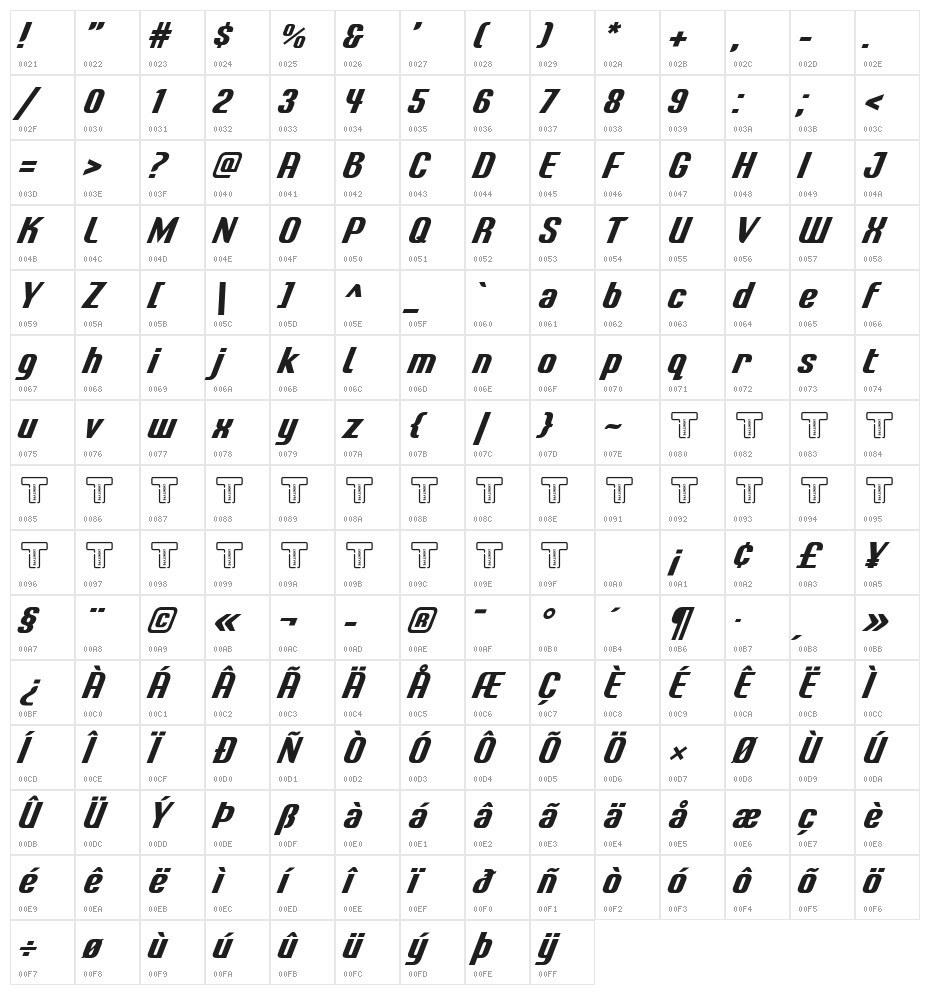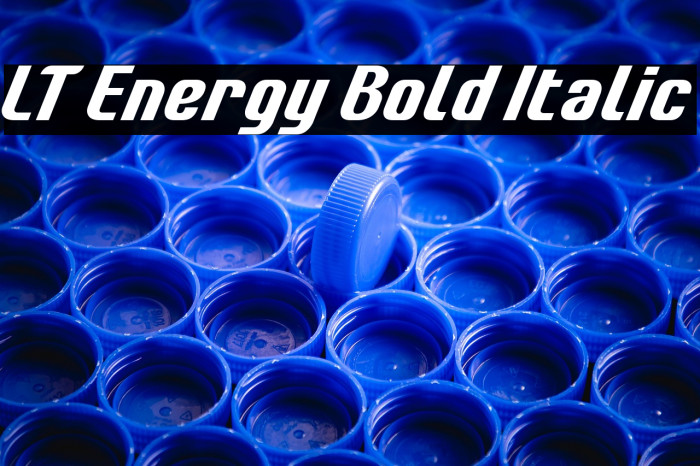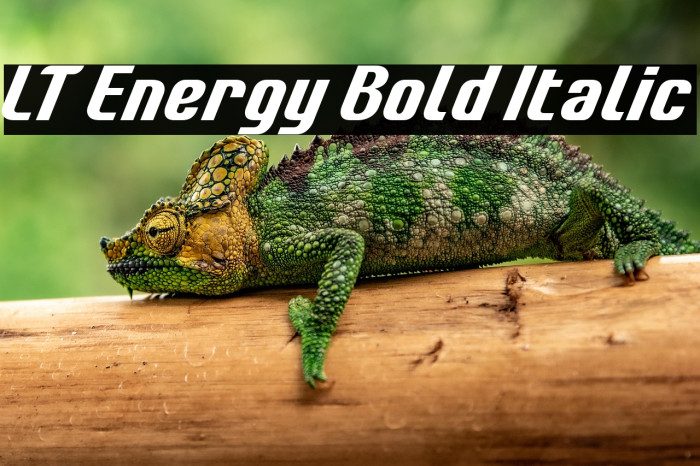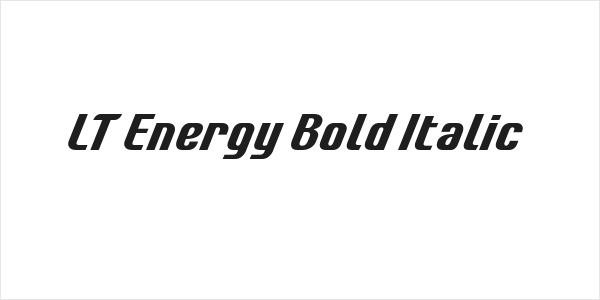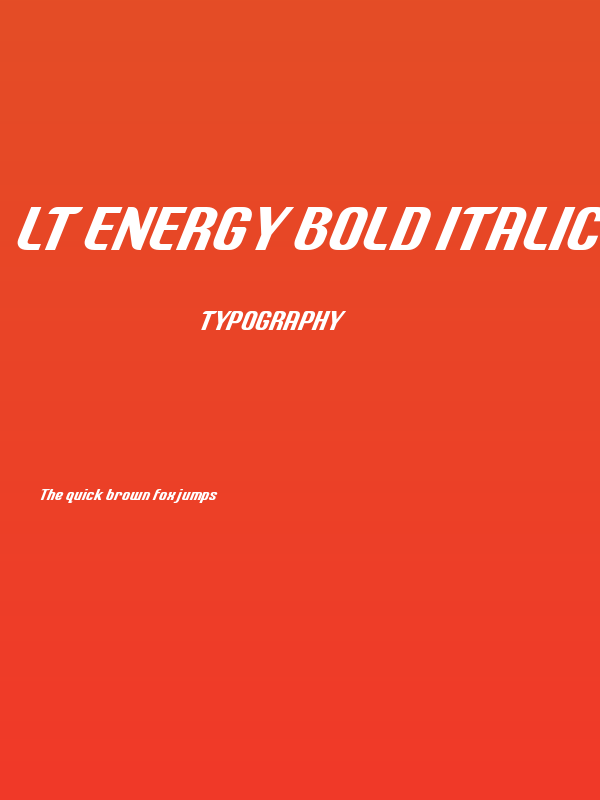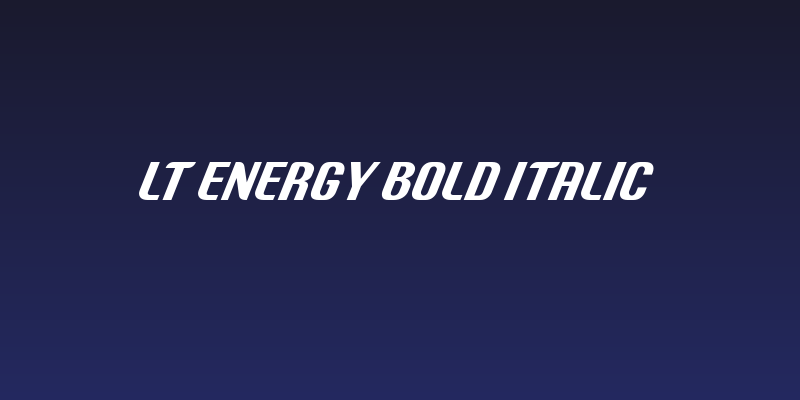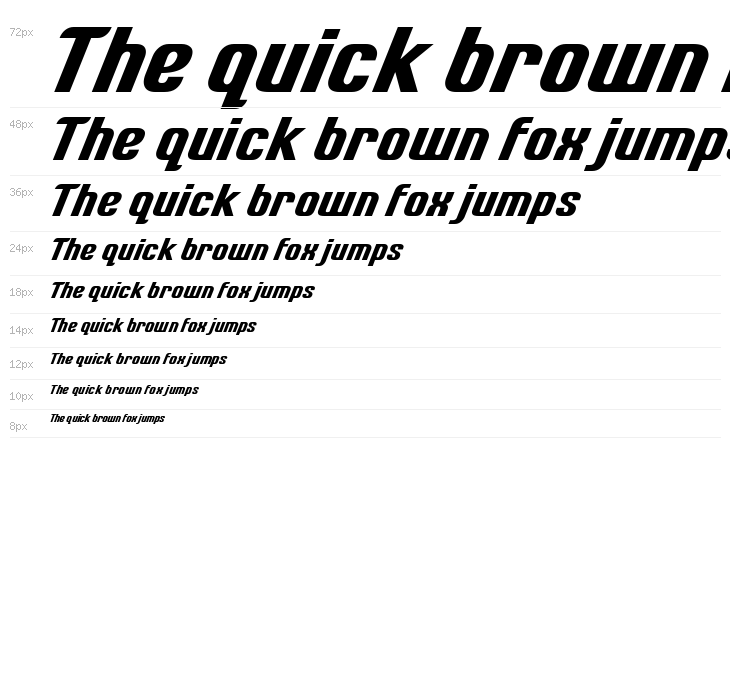
LT Energy Bold Italic Font
LT Energy Bold Italic Description
This font features a bold and italicized style with a strong, dynamic presence. The characters are slightly slanted, adding a sense of motion and energy. The strokes are thick and consistent, providing a robust and impactful appearance. The overall design is modern and sleek, making it suitable for attention-grabbing headlines or branding materials. The uppercase and lowercase letters maintain a uniform width, contributing to a cohesive look. The numerals are clear and bold, ensuring readability. Special characters are well-integrated, maintaining the font's energetic style.